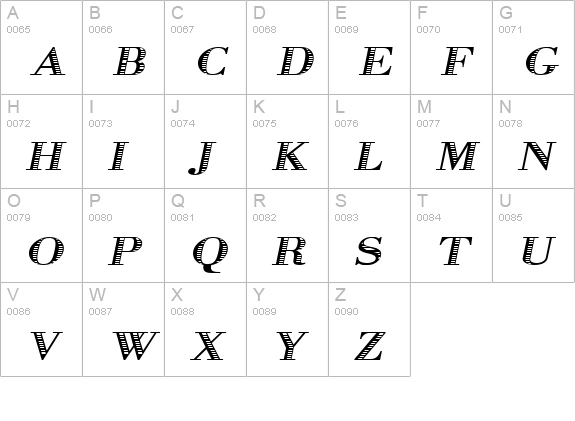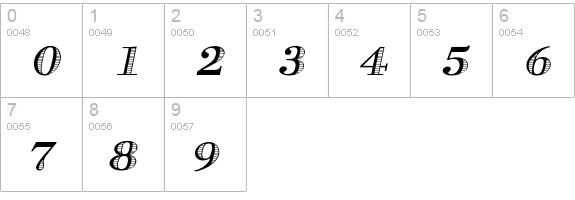
Graphis-Oblique Font Details
Graphis-Oblique is a distinctive, italic variant in the Graphis typeface family \xE2\x80\x94 well suited to design and typography projects.
Graphis-Oblique is a sleek and modern font that exudes sophistication and elegance. Its unique oblique style adds a touch of flair to any design project, making it perfect for branding, advertising, and editorial use. The clean lines and sharp angles of Graphis-Oblique give it a contemporary feel that is sure to make a statement. What makes Graphis-Oblique even more appealing is that it is available for free download at FontsMarket.com. This means you can easily access this stylish font and use it in your projects without any cost. Whether you're creating a website, designing a logo, or working on a print advertisement, Graphis-Oblique is a versatile font that will elevate your work to the next level. Download it today and see the difference it can make in your designs!